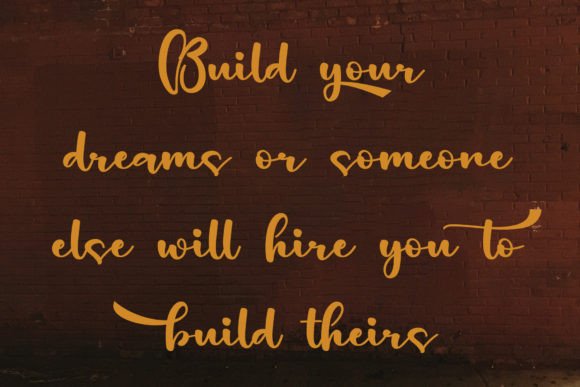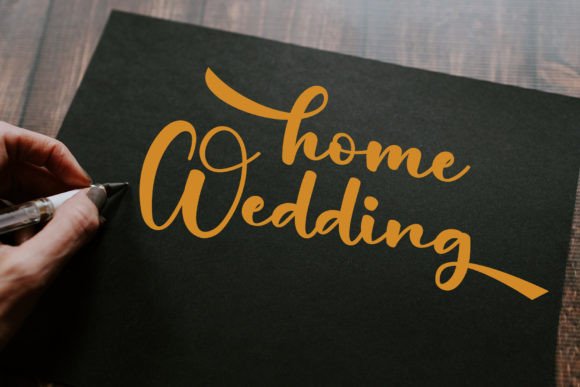
Introduction to Reached Font Font
Fonts play a crucial role in design, and the Reached Font font is a typeface that brings both character and versatility to any project. Whether you’re working on a branding project, a website, or a print design, the Reached Font font offers a unique style that can elevate your work.
Reached is a simple handwritten font created in a random freestyle.
It is suitable for a logotype, headline, corporate identity, brand identity, apparel industry, poster, music, movie, game, magazine, book, comic, cartoon, YouTube, Instagram, website, or any of your creative design projects .
Key Features of Reached Font Font
Why Choose Reached Font Font?
The Reached Font font is more than just a typeface – it’s a design tool that helps you communicate your message with style and clarity. Its unique character set and versatile design make it suitable for a wide range of applications, from elegant invitations to bold headlines.
With its carefully crafted letterforms and balanced proportions, the Reached Font font ensures readability and visual appeal across all mediums.
What makes Reached Font font special?
The Reached Font font stands out with its unique design, exceptional readability, and versatility across various design applications.